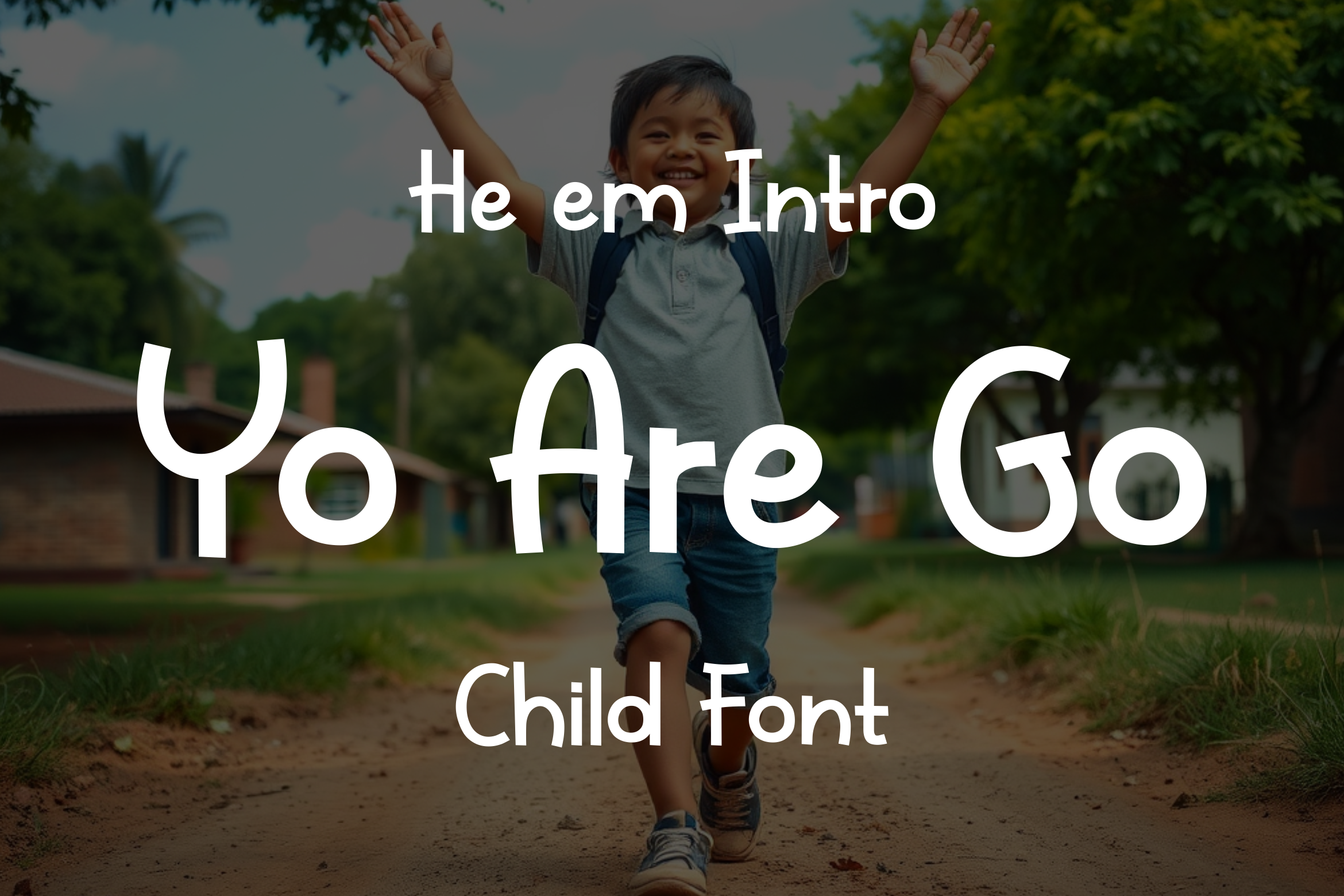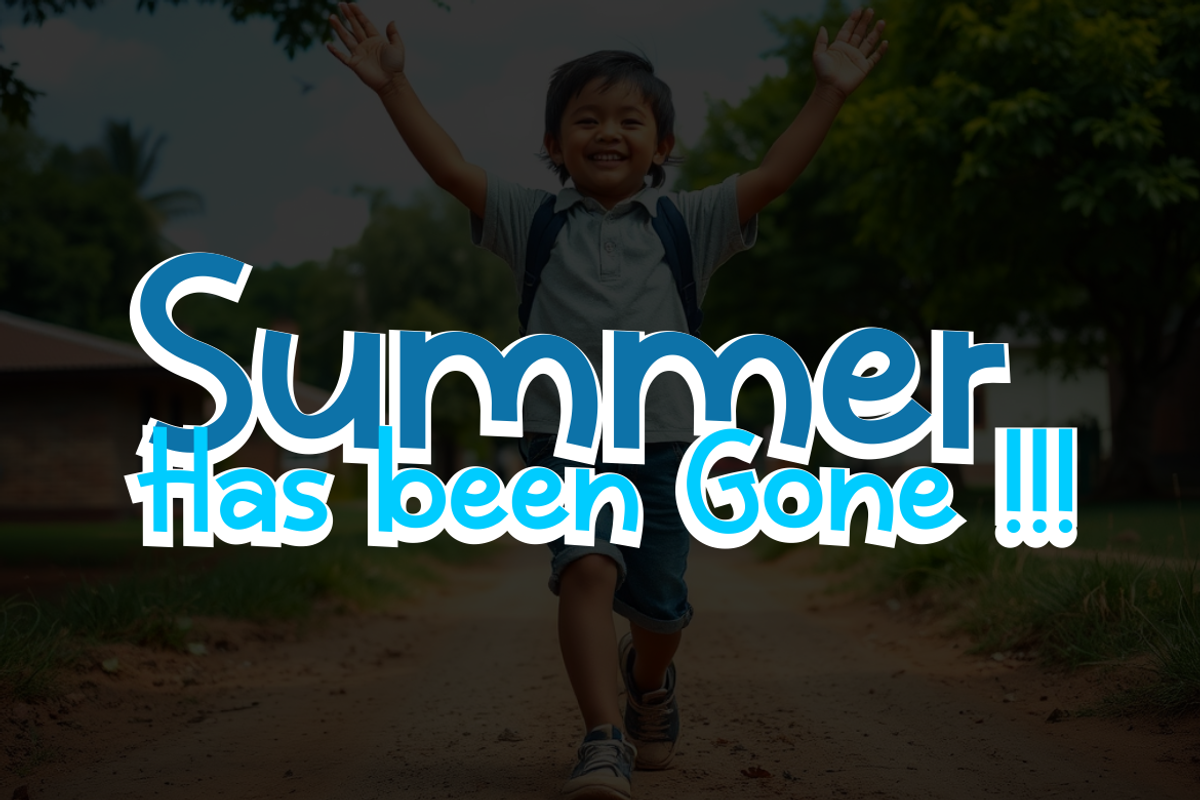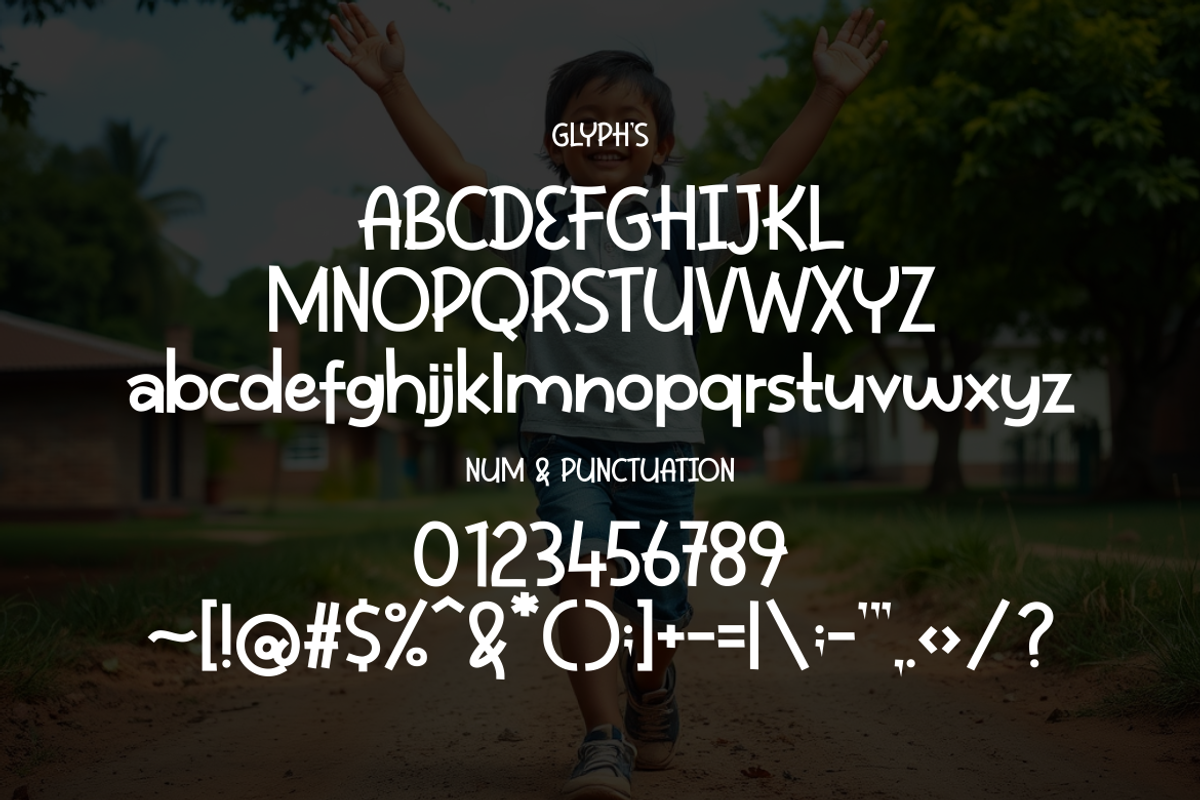
Yo Are Go Font
Font Name: Yo Are Go
Yo Are Go is a lively and vibrant font designed specifically for children. With its playful, this font is perfect for toys, greeting cards, birthday wishes, and kids’ food and beverage packaging.
Features: Playful Design: Engaging and energetic style that captures the fun of childhood. Easy to Read: Clear characters ensure accessibility for kids and parents alike. Formats: Available in .OTF and .TTF, making it versatile for both digital and print projects.